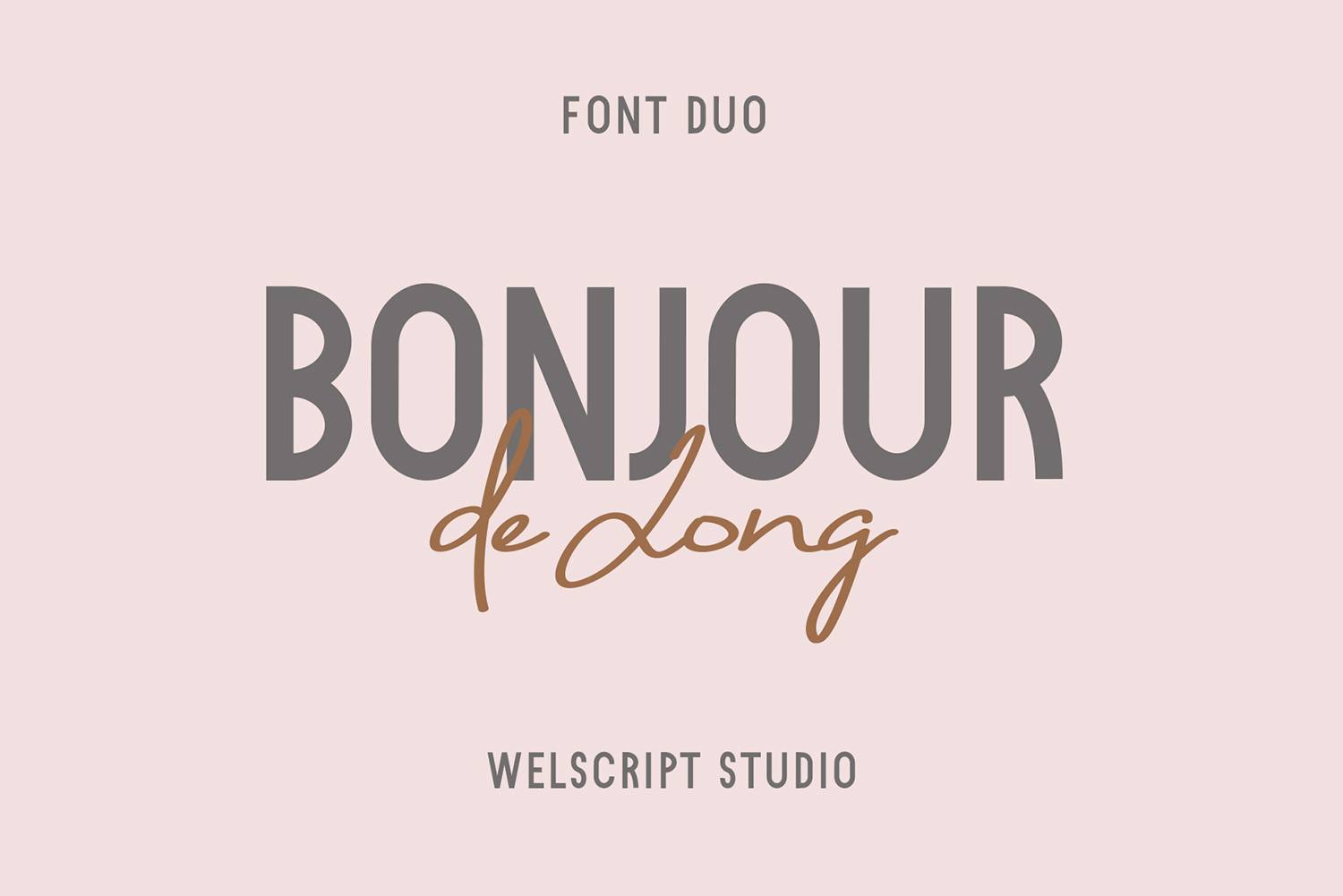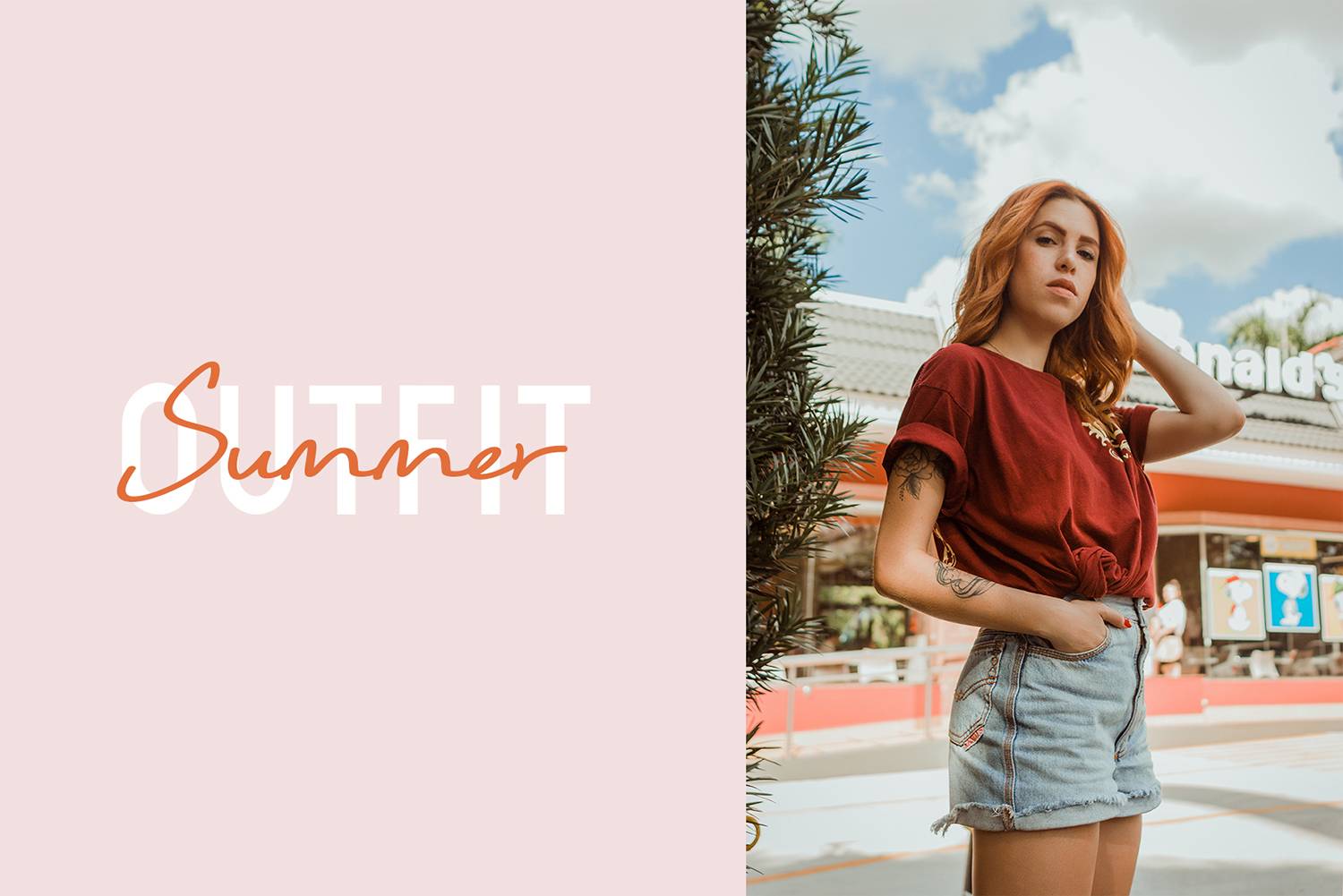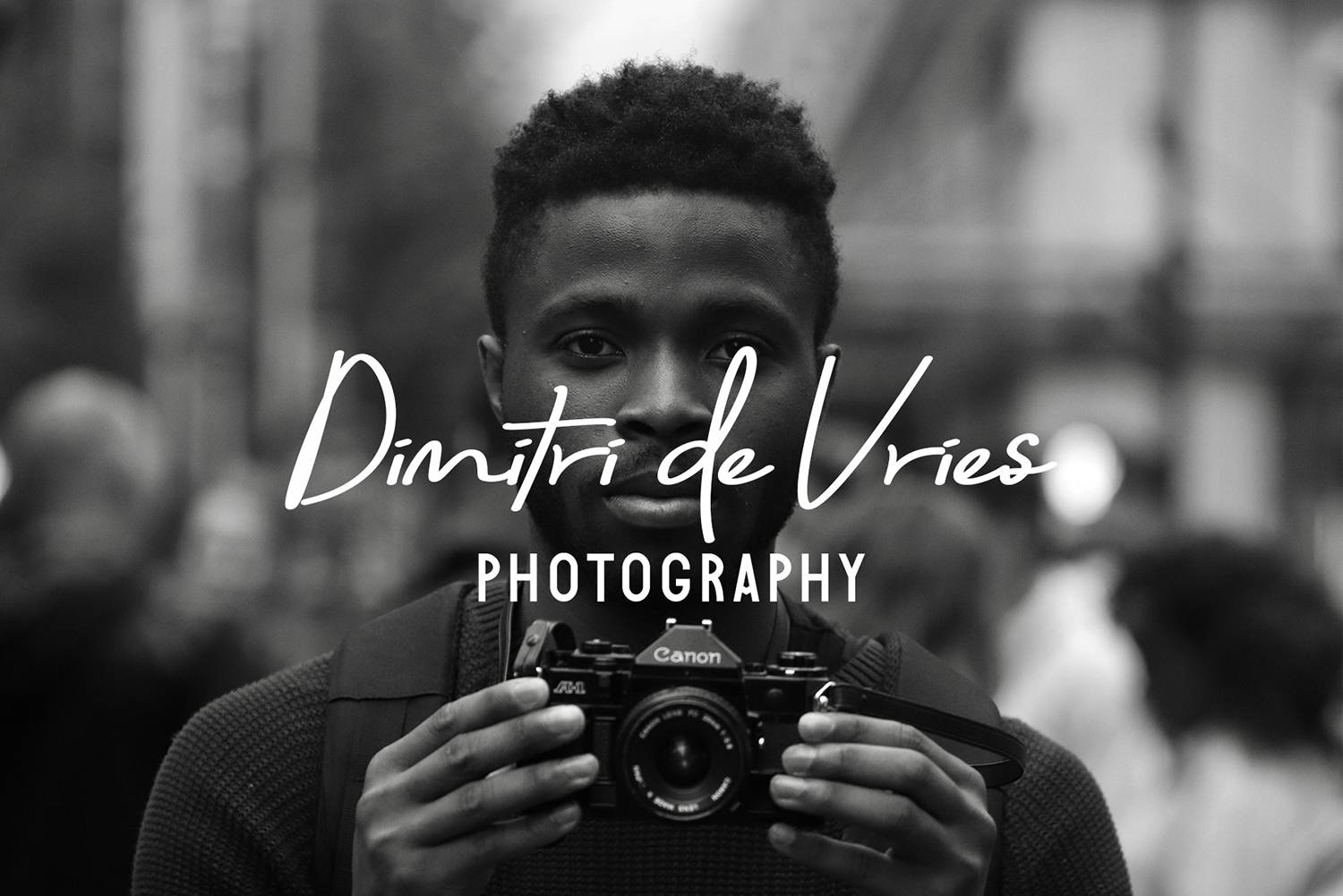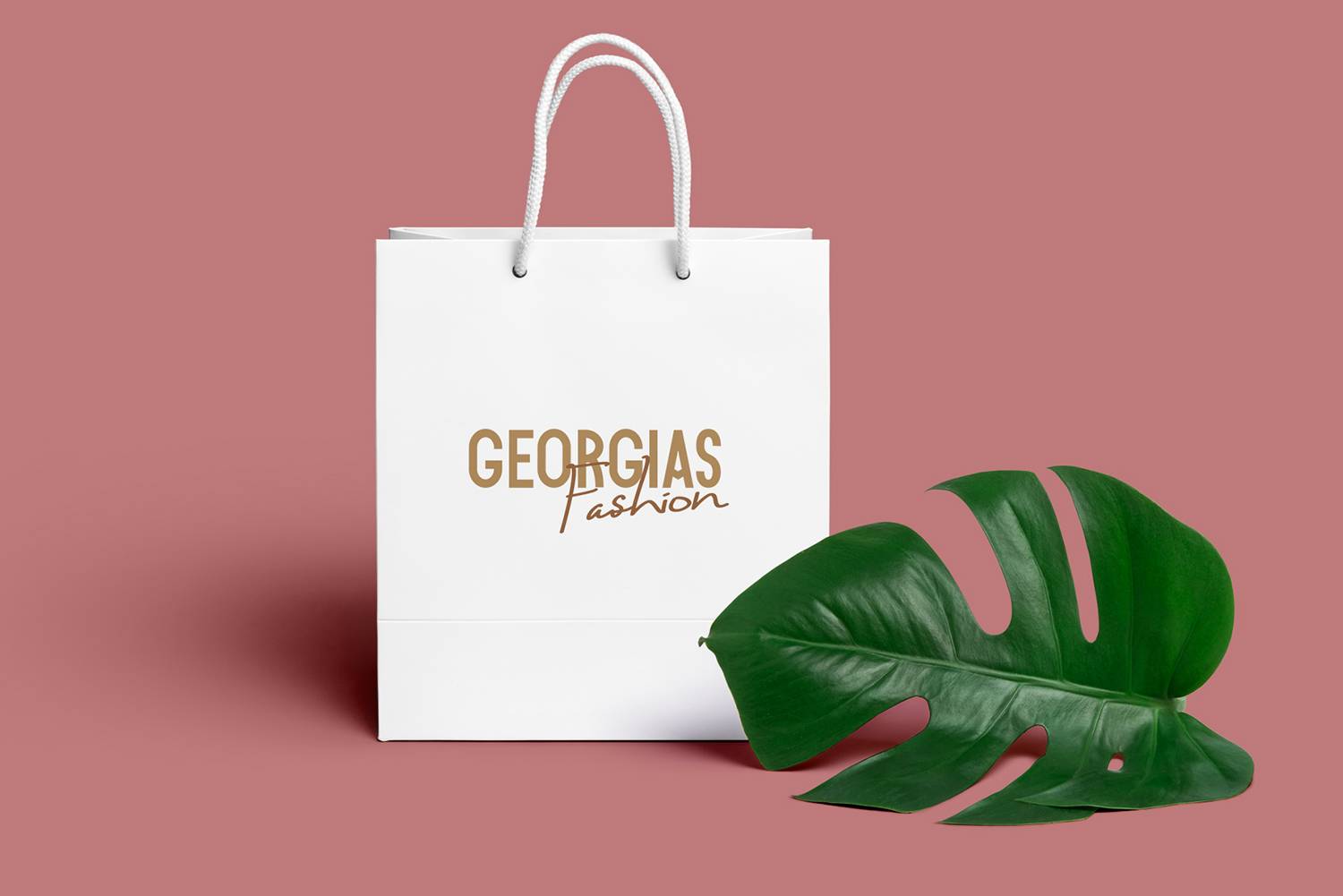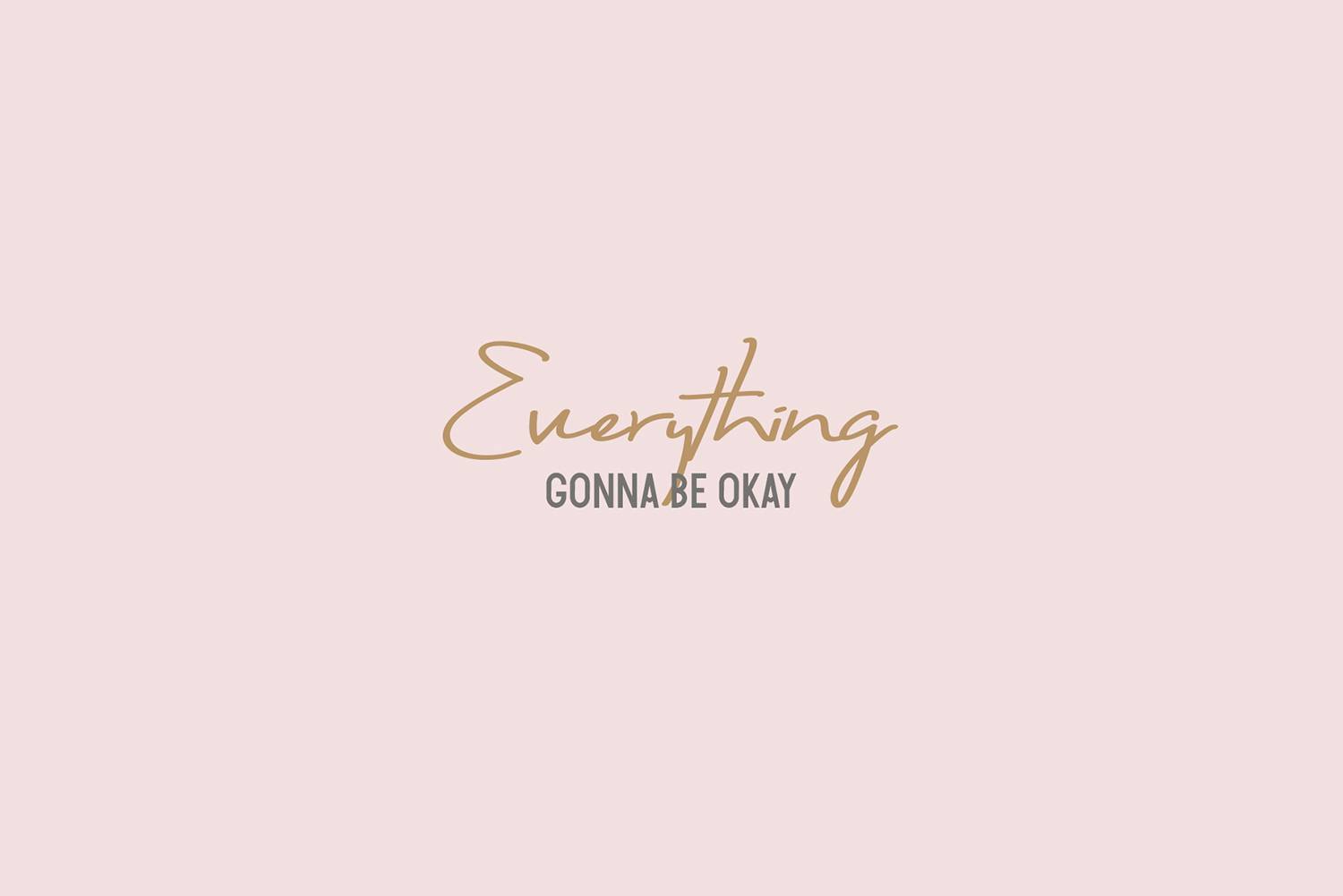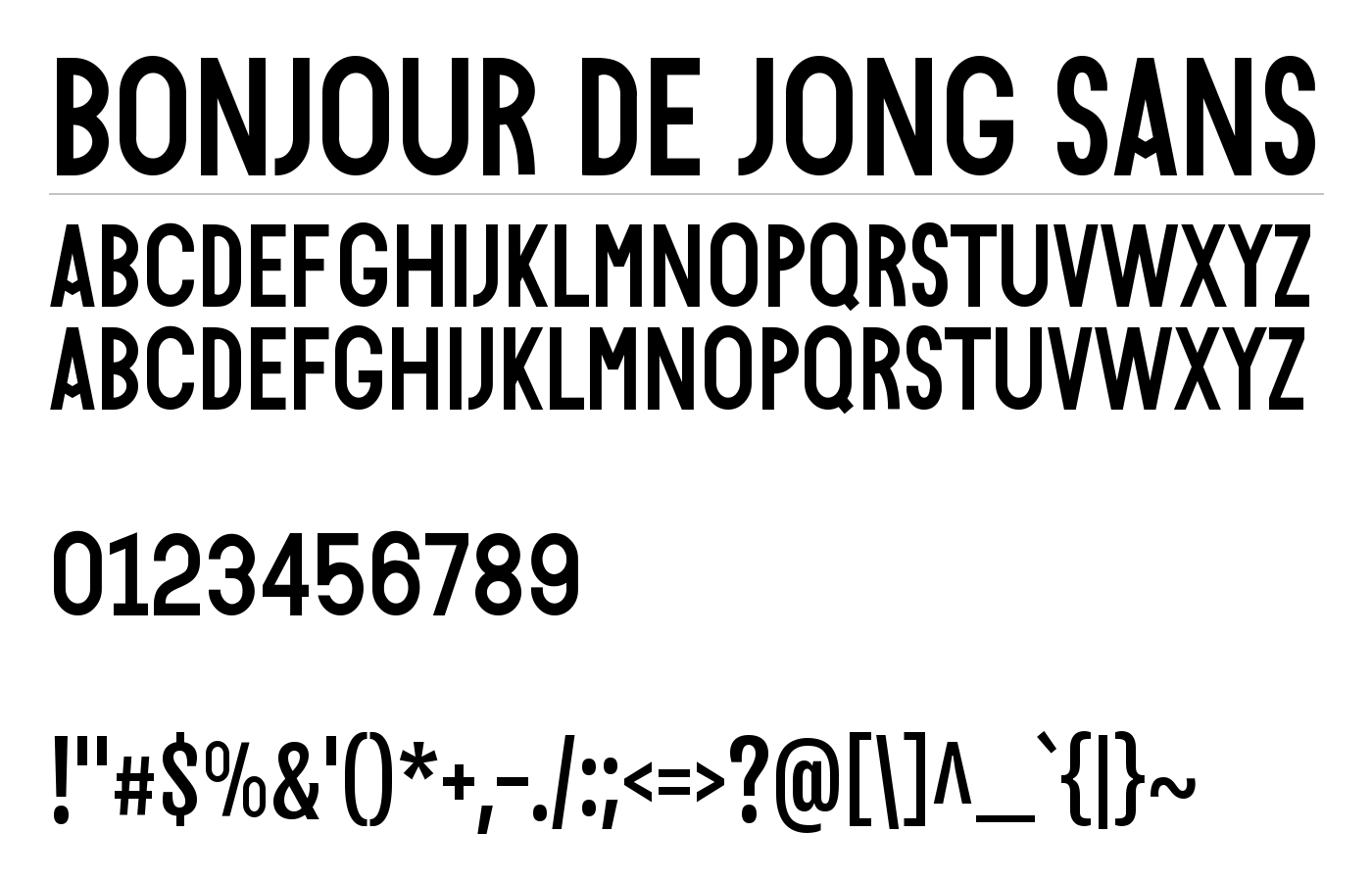
Bonjour de Jong Sans is a tall, narrow sans serif font with a clean, modern feel and strong geometric structure. Its consistent weight and sharp edges give it a bold and confident personality, making it ideal for impactful headlines, branding, and editorial use where a stylish yet straightforward look is needed. This font works especially well for contemporary design projects that seek a distinctive, urban vibe with clear readability.
Bonjour de Jong Font
About Bonjour de Jong Font